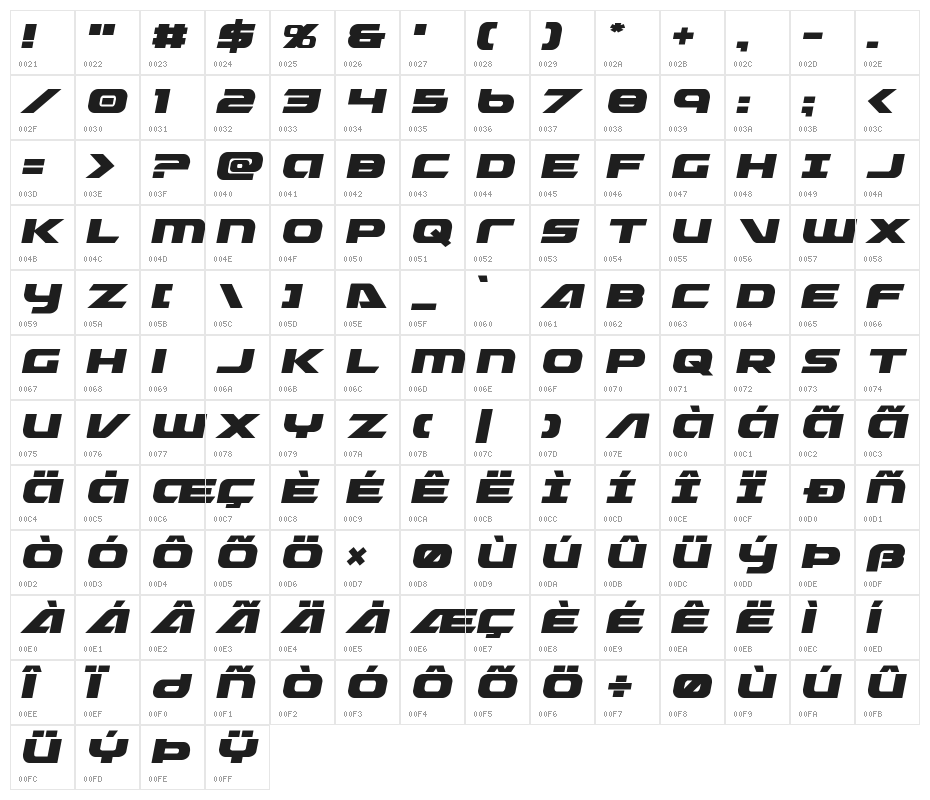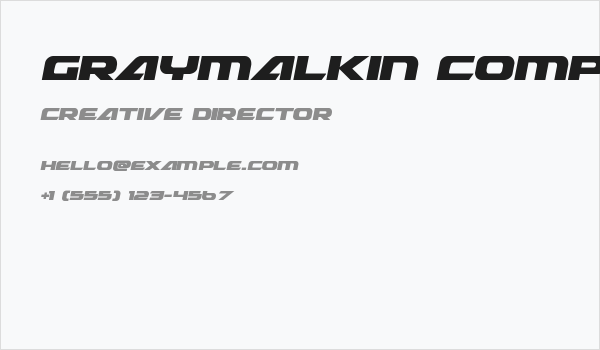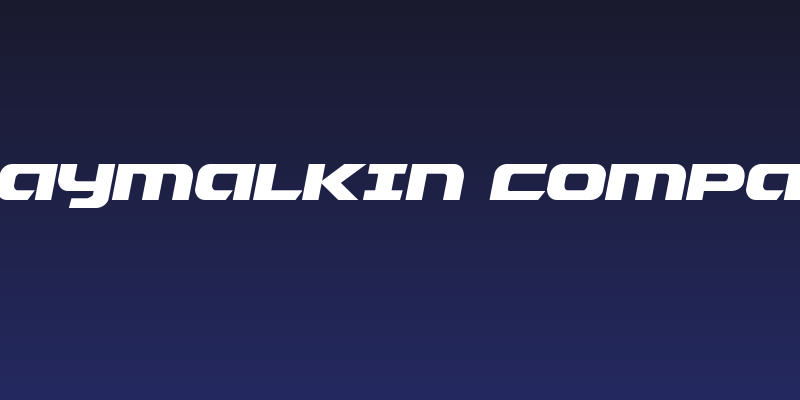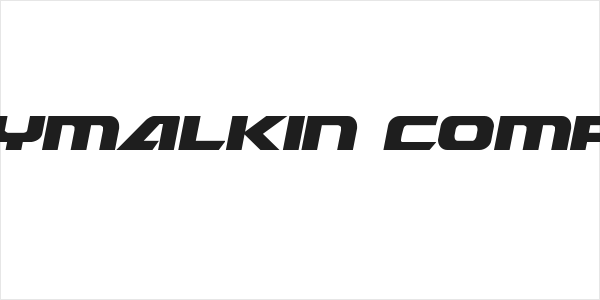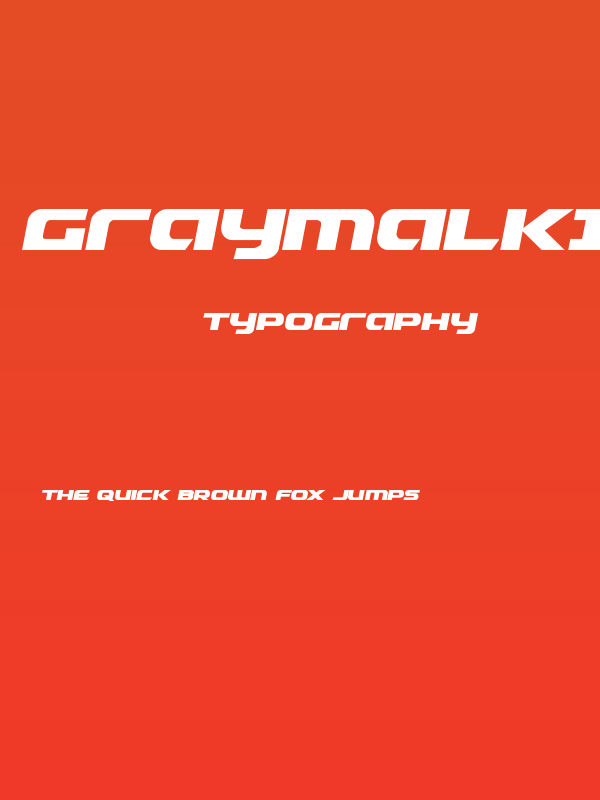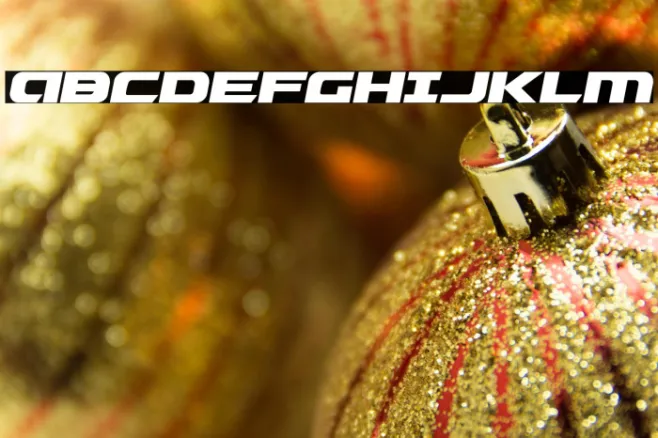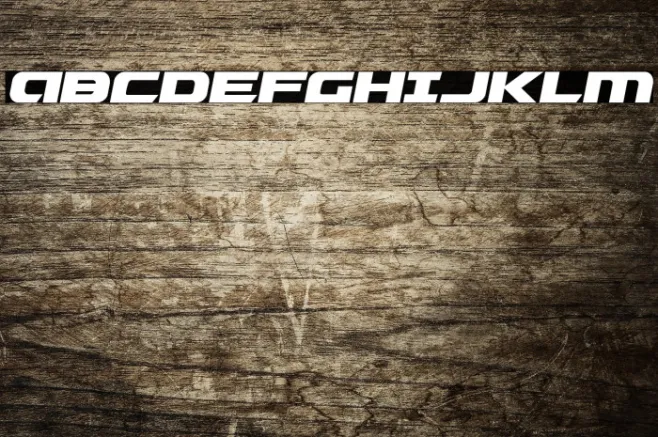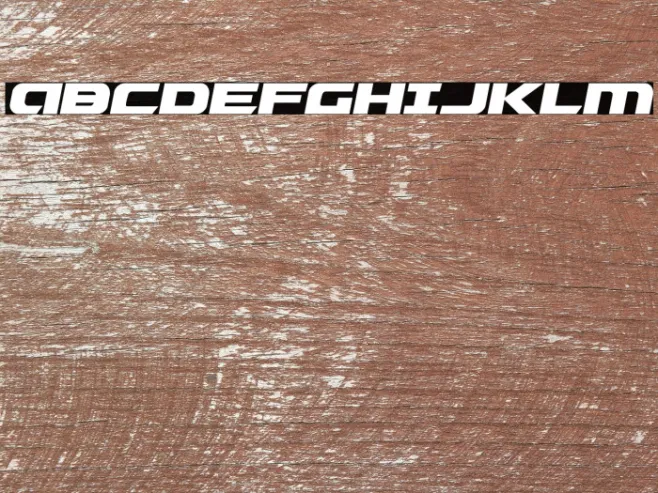
Graymalkin Compact Font
Graymalkin Compact Description
This font features a bold and dynamic design with a futuristic and angular style. The characters are slightly slanted, giving a sense of motion and speed. The uppercase and lowercase letters maintain a consistent geometric form, with sharp edges and a compact structure. The numbers and special characters follow the same design principles, ensuring uniformity across all glyphs. This font's unique appearance makes it stand out, ideal for projects that require a modern and edgy look.
| Proposed Projects | Ideal for technology branding, sports team logos, video game titles, and sci-fi themed posters. |